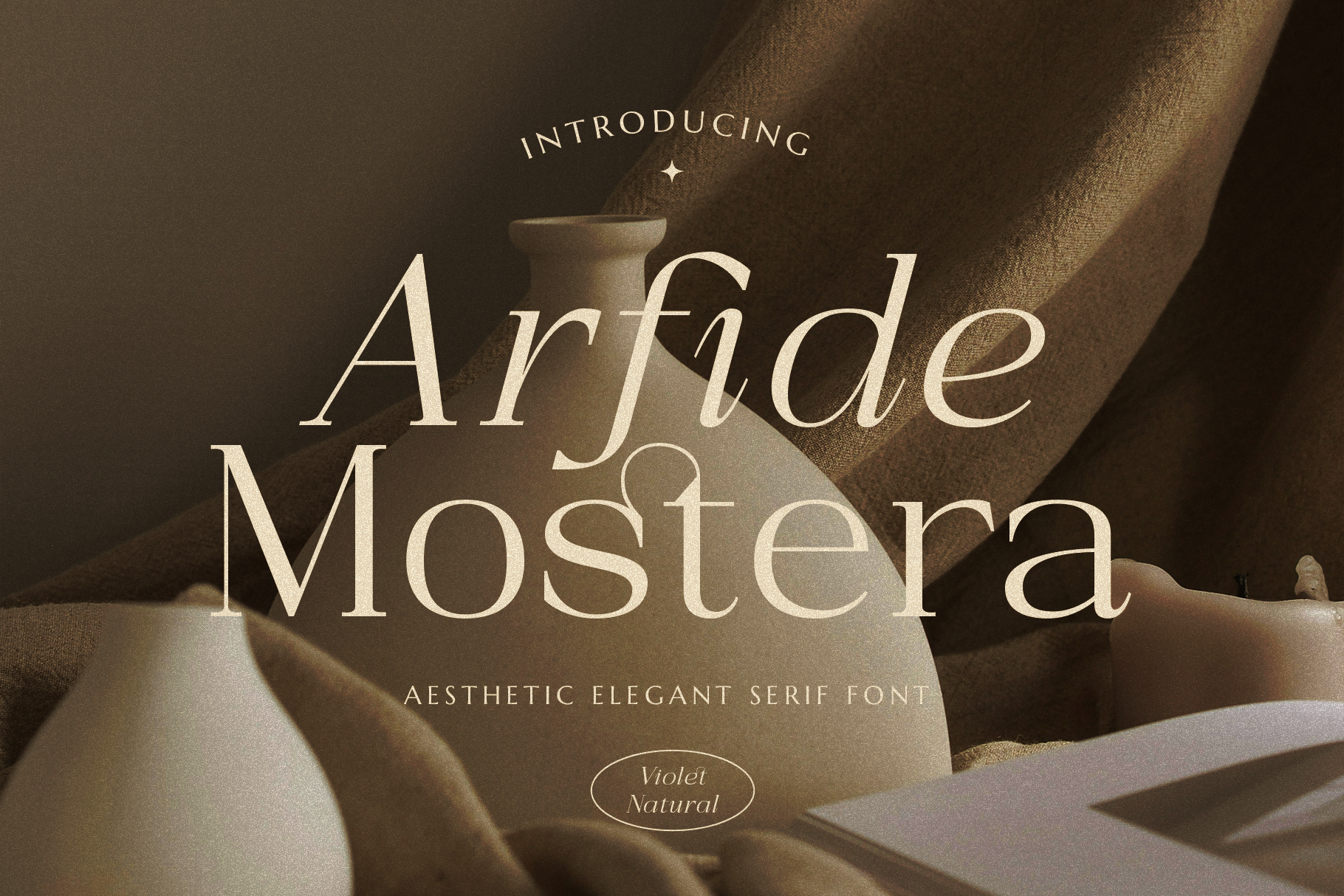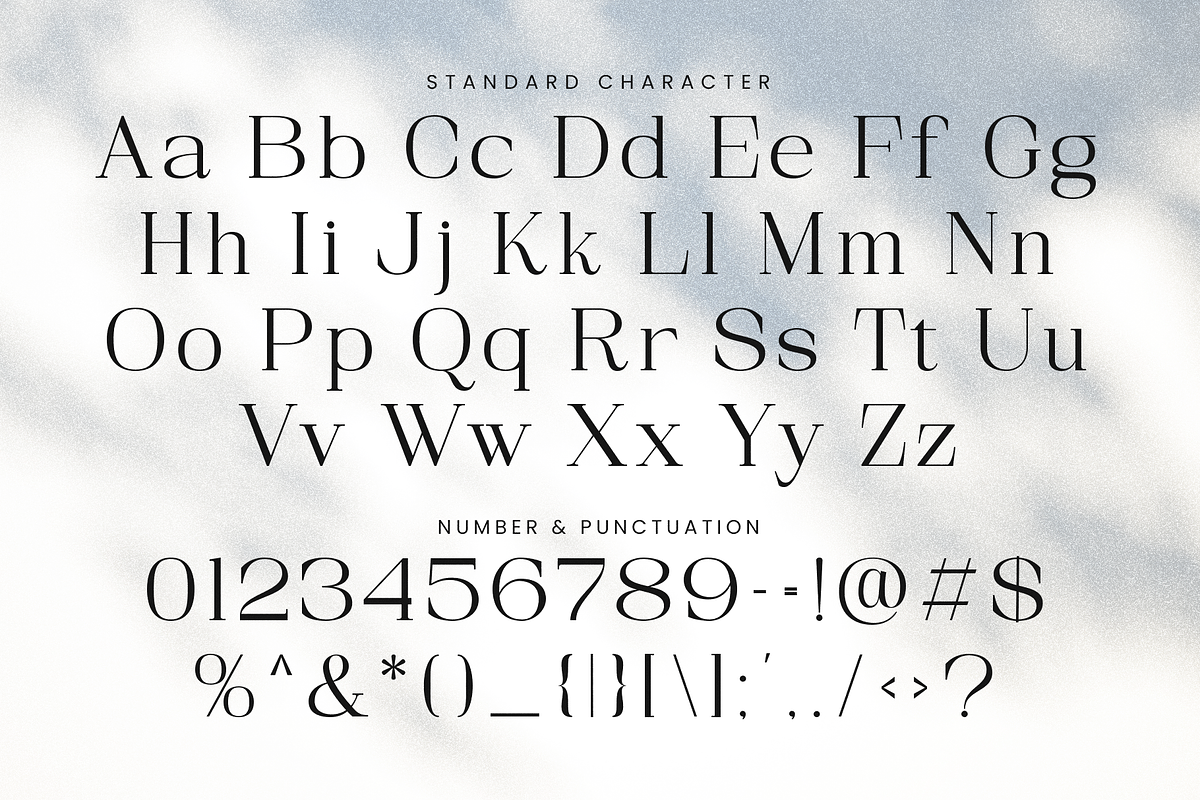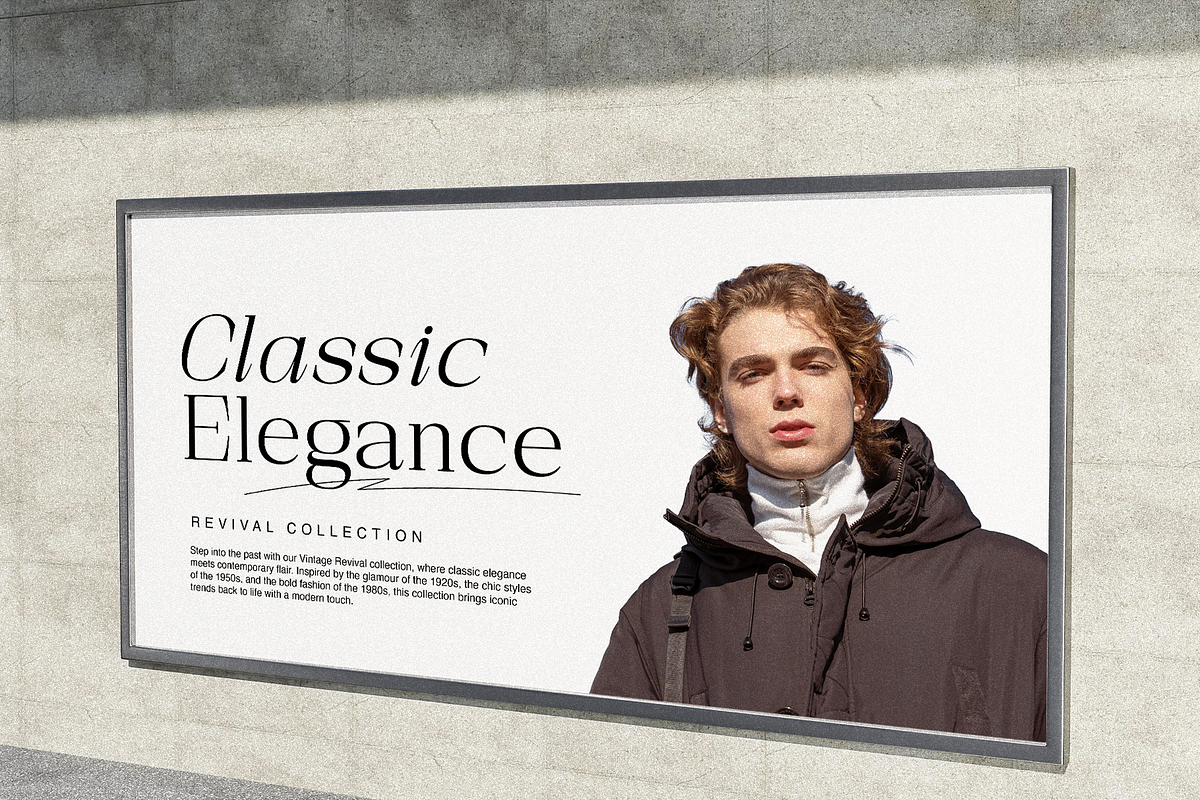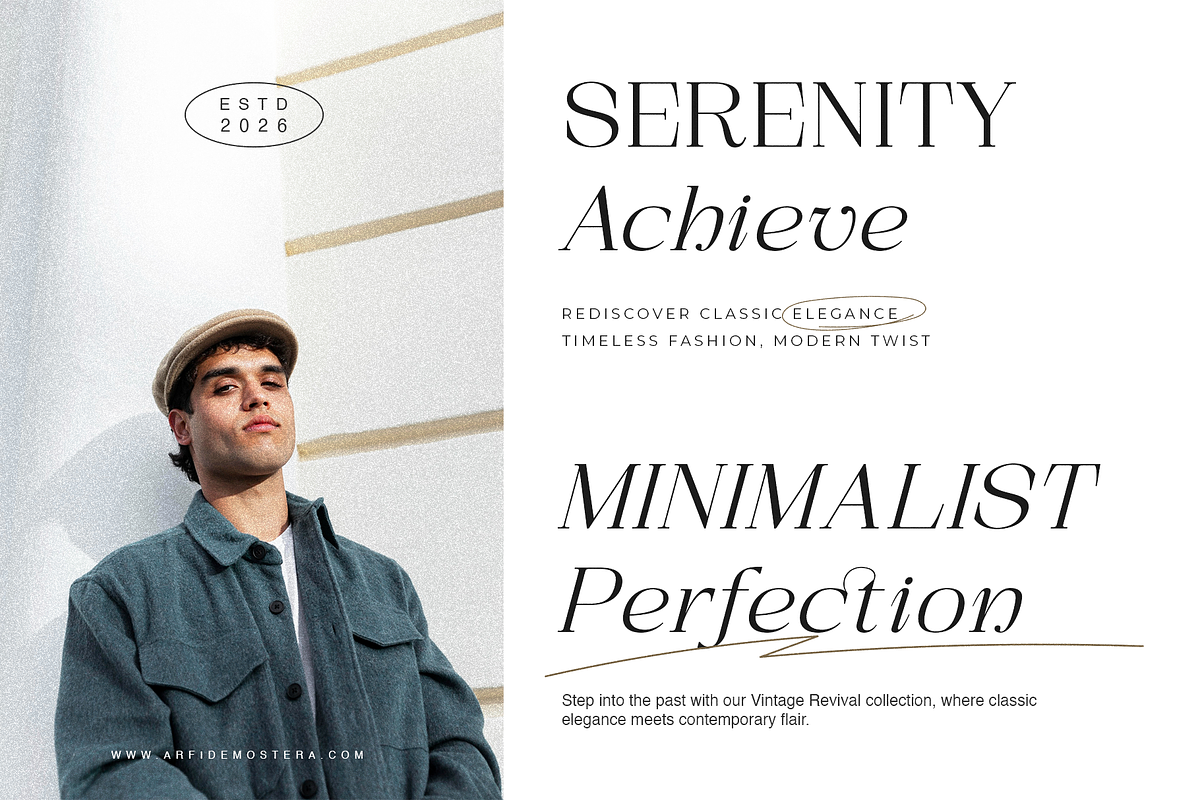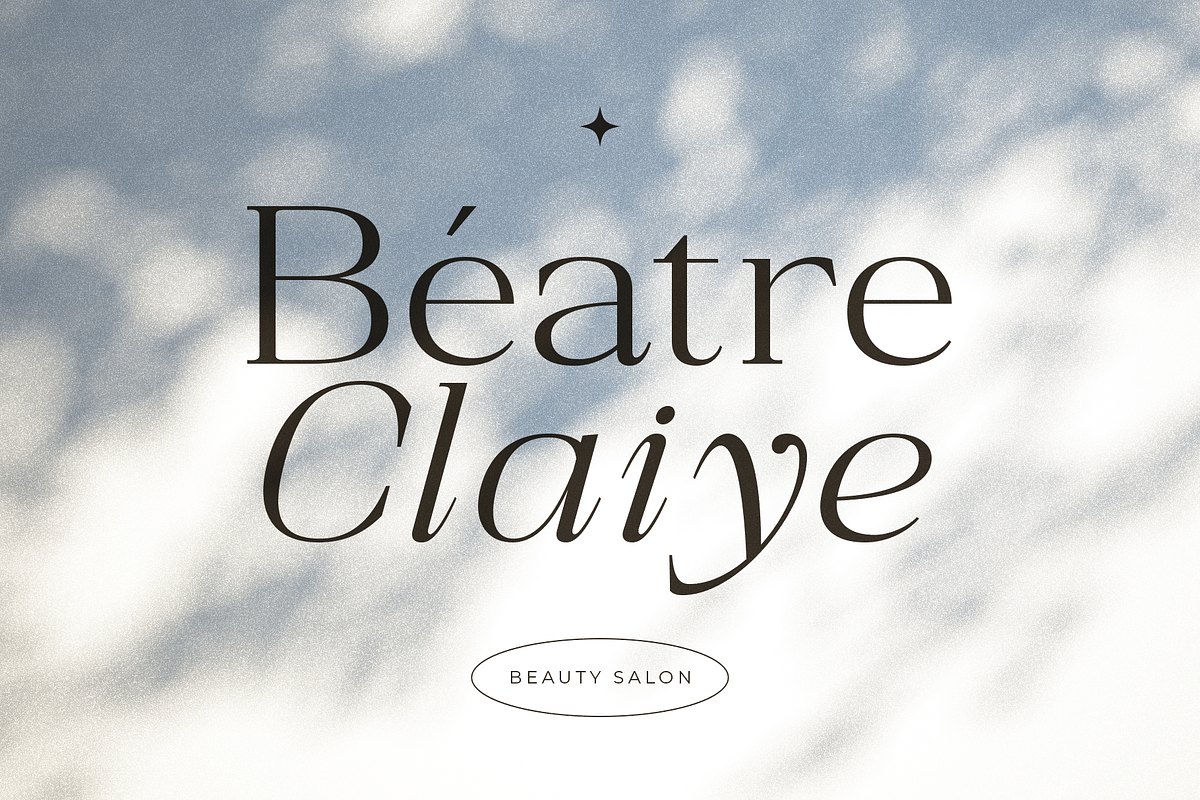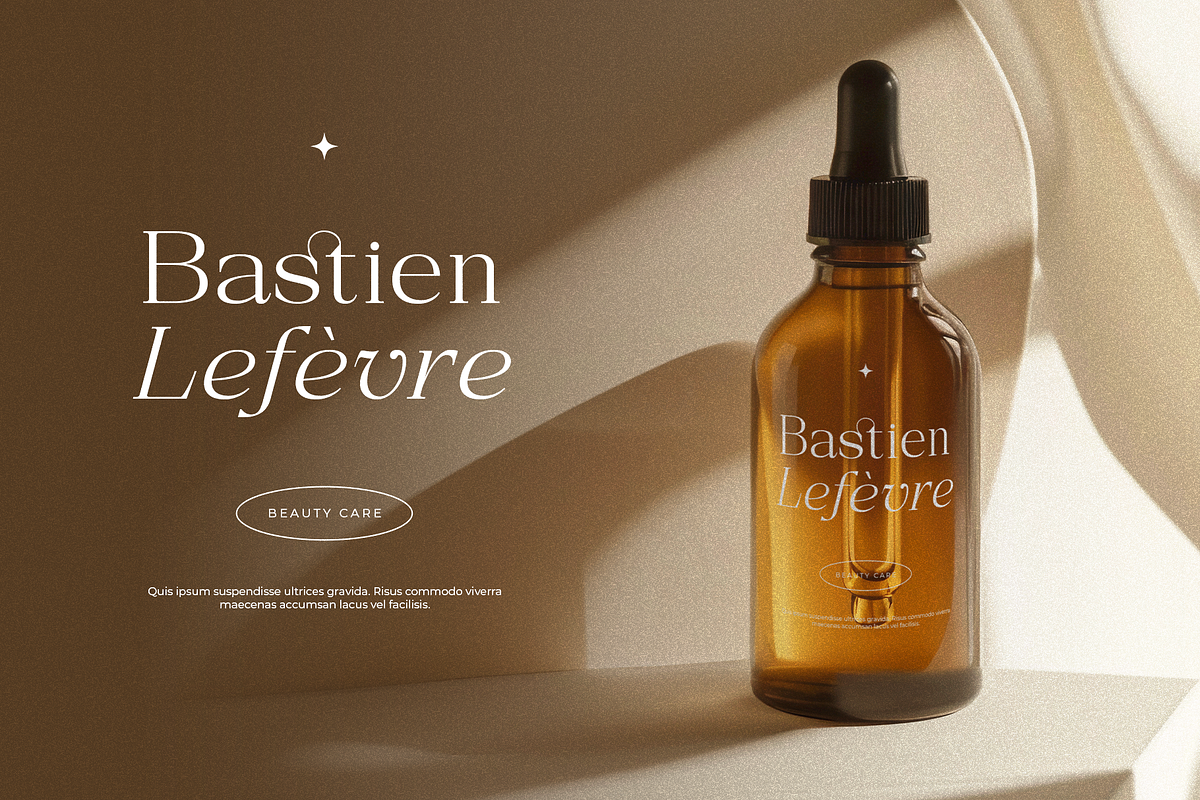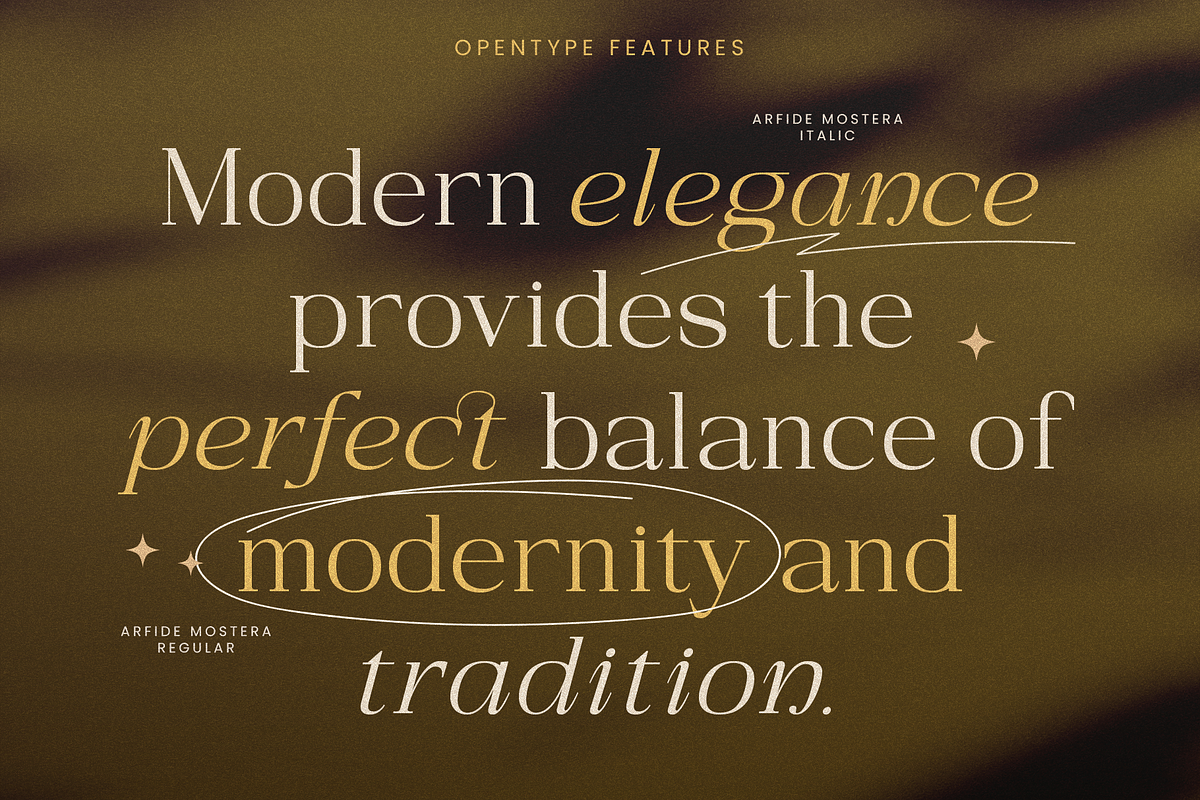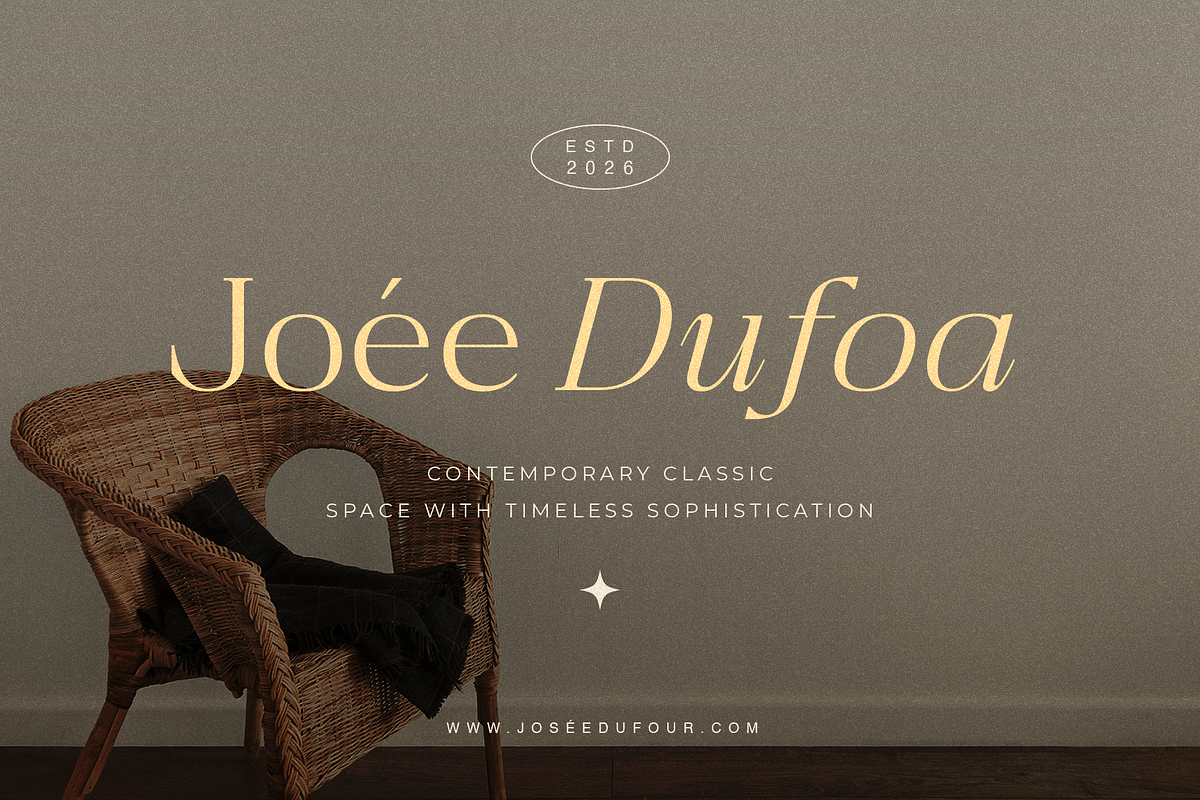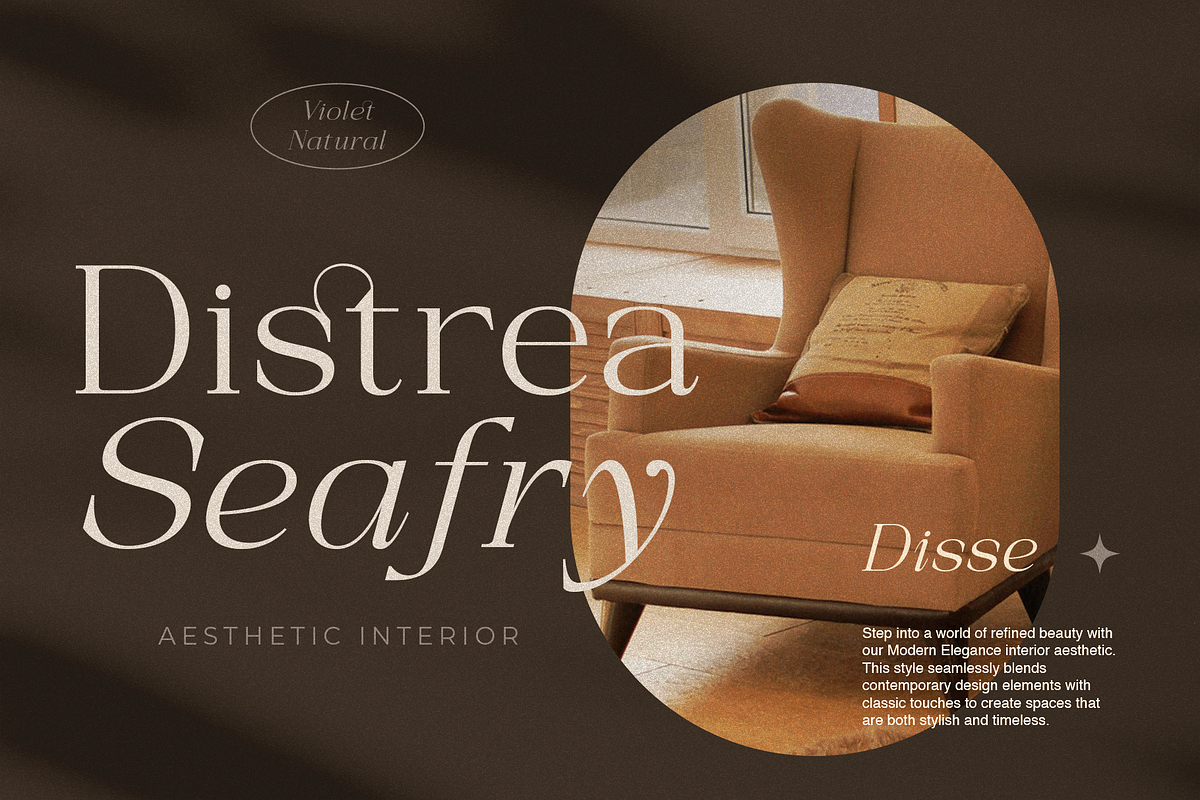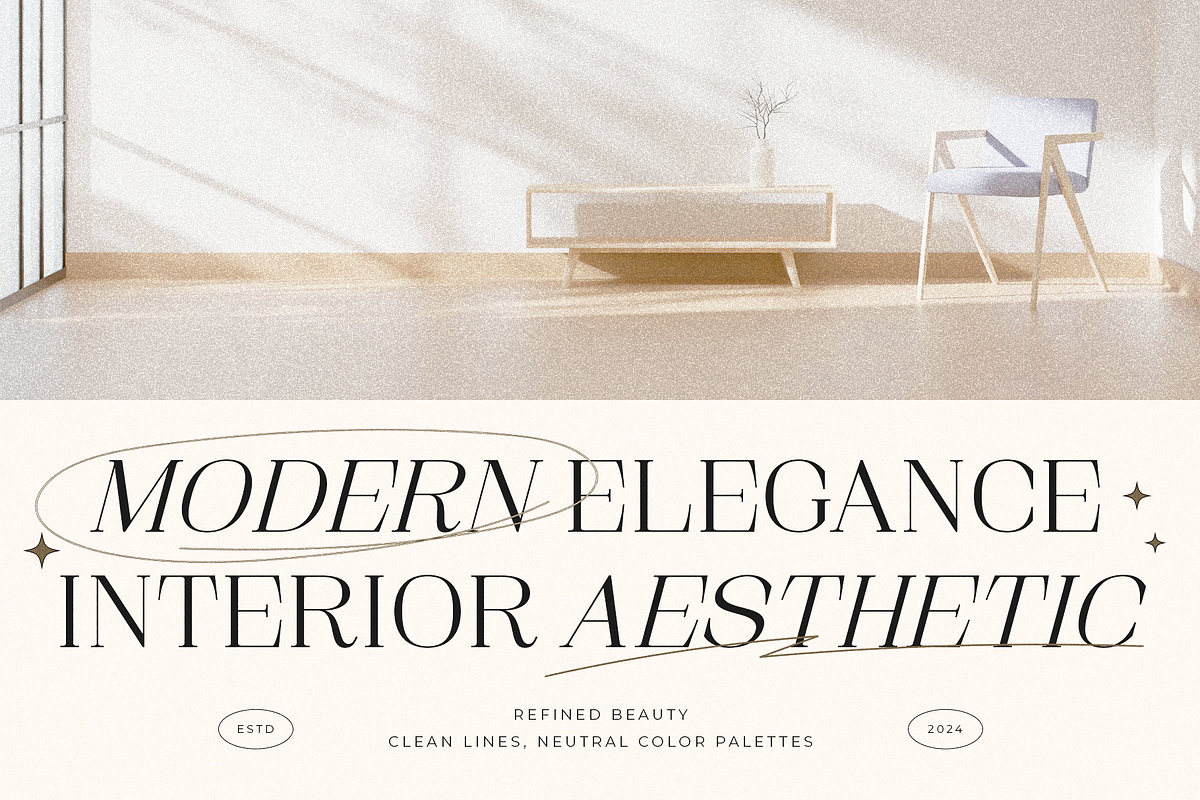
Arfide Mostera Aesthetic Serif Font
Introducing Arfide Mostera: Embrace Effortless Elegance
Unveil the essence of refined femininity with Arfide Mostera, a minimalist serif font crafted for the modern woman. Designed with graceful curves and clean lines, Arfide Mostera effortlessly blends sophistication with simplicity, making it the perfect choice for your elegant projects.
Whether you're designing a chic lifestyle blog, creating stunning social media graphics, or crafting stylish invitations, Arfide Mostera empowers you to express your unique vision with poise. Its minimalist charm adds a touch of sophistication to every word, capturing attention and leaving a lasting impression.
Elevate your typography to new heights with Arfide Mostera. Embrace the art of minimalism and let your creativity shine with a font that speaks to the heart of contemporary femininity. Discover Arfide Mostera today and transform your designs into timeless works of art.